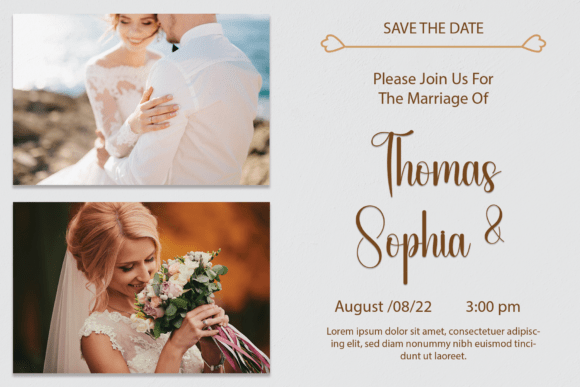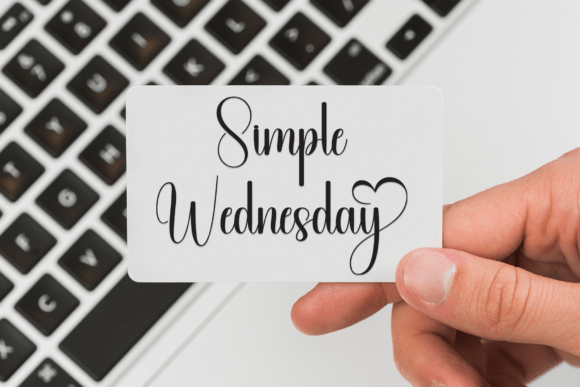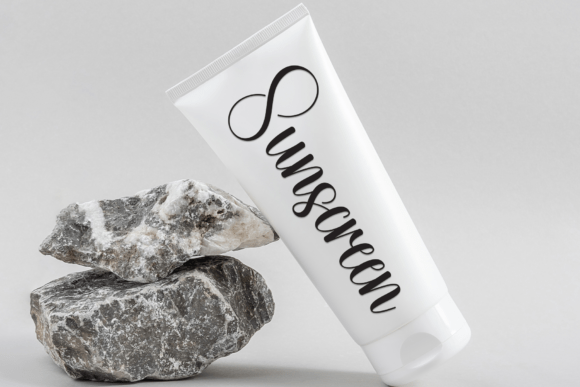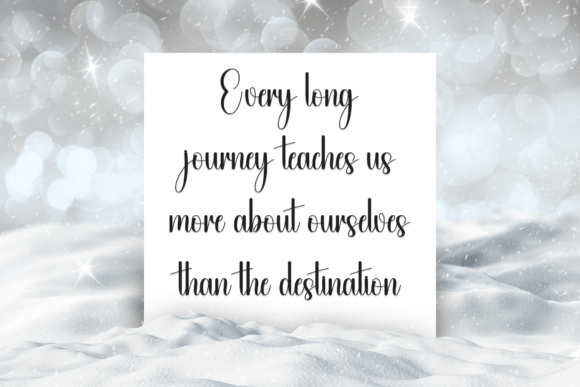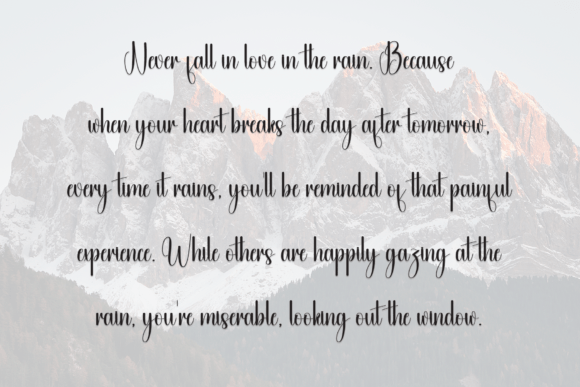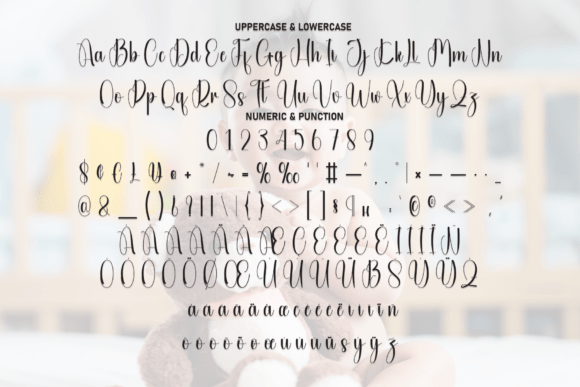
Baby Font: Sweet and Friendly Handwritten Display Font
Are you looking for a font that can add a touch of whimsy and playfulness to your designs? Look no further than the Sweet and Friendly Handwritten Display Font, also known as Baby Font. This delightful font is perfect for designers and crafters who want to bring a sense of joy and light-heartedness to their work.
What is Baby Font?
Baby Font is a handwritten display font that captures the essence of handwritten inscriptions. Its sweet and friendly style makes it perfect for a variety of design projects, from wedding invitations to everyday cards. The font’s whimsical and playful nature makes it a great choice for designers who want to add a personal touch to their work.
Characteristics of Baby Font
The Sweet and Friendly Handwritten Display Font has several characteristics that make it a great choice for designers and crafters. Some of its key features include:
- Whimsical and playful style: The font has a light-hearted and playful nature that makes it perfect for designs that require a touch of fun and personality.
- Handwritten inscriptions: The font captures the essence of handwritten inscriptions, making it perfect for designs that require a personal touch.
- Delightful and versatile: The font is not just a font; it’s a delightful design companion that can bring your imagination to life.
Uses of Baby Font
The Sweet and Friendly Handwritten Display Font is a versatile font that can be used for a variety of design projects. Some of the most popular uses of the font include:
- Wedding invitations: The font’s sweet and romantic style makes it perfect for wedding invitations and other wedding-related designs.
- Everyday cards: The font’s playful and whimsical nature makes it perfect for everyday cards, such as birthday cards, thank-you cards, and more.
- Design narratives: The font can add an unexpectedly wonderful twist to your design narratives, making them more engaging and interesting.
Benefits of Using Baby Font
There are several benefits to using the Sweet and Friendly Handwritten Display Font in your designs. Some of the most significant benefits include:
- Unique and creative designs: The font’s whimsical and playful style can help you create unique and creative designs that stand out from the crowd.
- Personal touch: The font’s handwritten nature gives your designs a personal touch, making them more relatable and engaging.
- Versatility: The font is versatile and can be used for a variety of design projects, from wedding invitations to everyday cards.
Tips for Using Baby Font
Here are some tips for using the Sweet and Friendly Handwritten Display Font in your designs:
- Use it sparingly: The font’s playful and whimsical nature can be overwhelming if used too much. Use it sparingly to add a touch of fun and personality to your designs.
- Pair it with other fonts: The font can be paired with other fonts to create a unique and interesting design. Experiment with different font combinations to find the perfect look.
- Experiment with colors: The font’s sweet and friendly style can be enhanced with the right colors. Experiment with different colors to find the perfect combination.
The Sweet and Friendly Handwritten Display Font, also known as Baby Font, is a delightful and versatile font that can add a touch of whimsy and playfulness to your designs. Its sweet and friendly style makes it perfect for a variety of design projects, from wedding invitations to everyday cards. With its unique and creative style, the font can help you create designs that stand out from the crowd. So why not give it a try and see how it can bring your imagination to life?